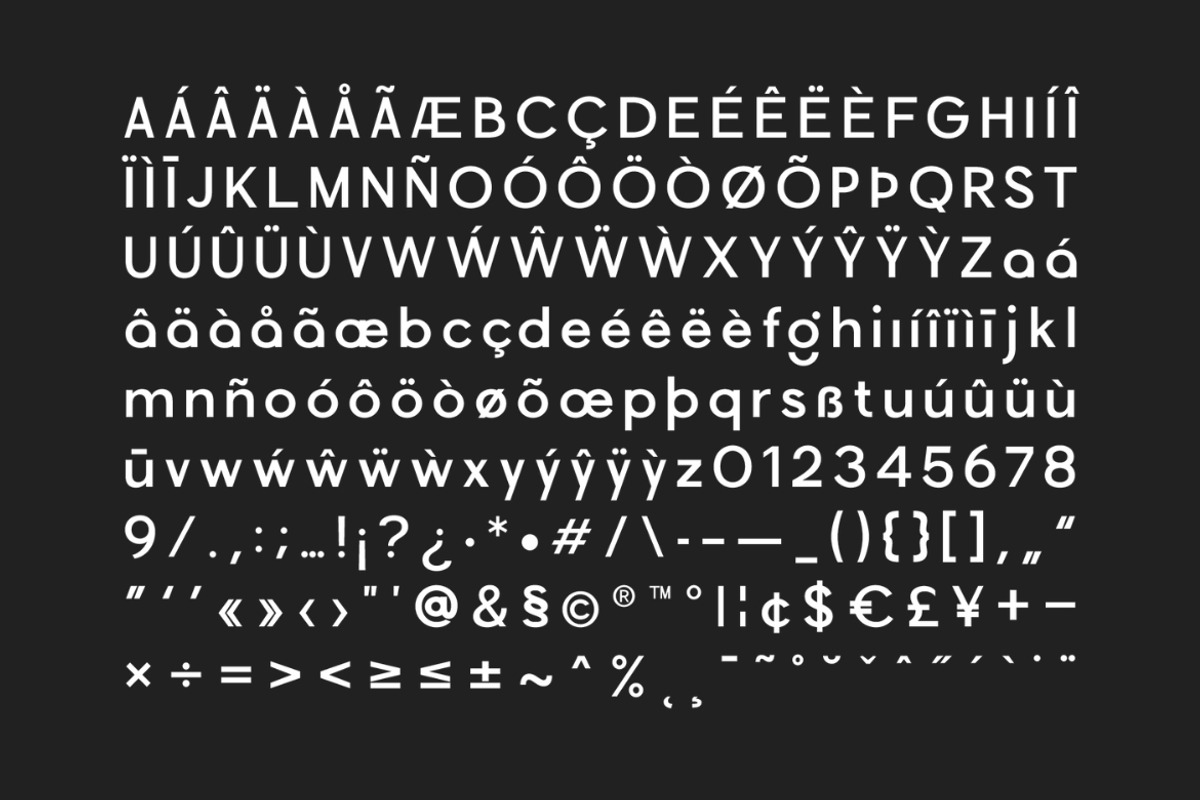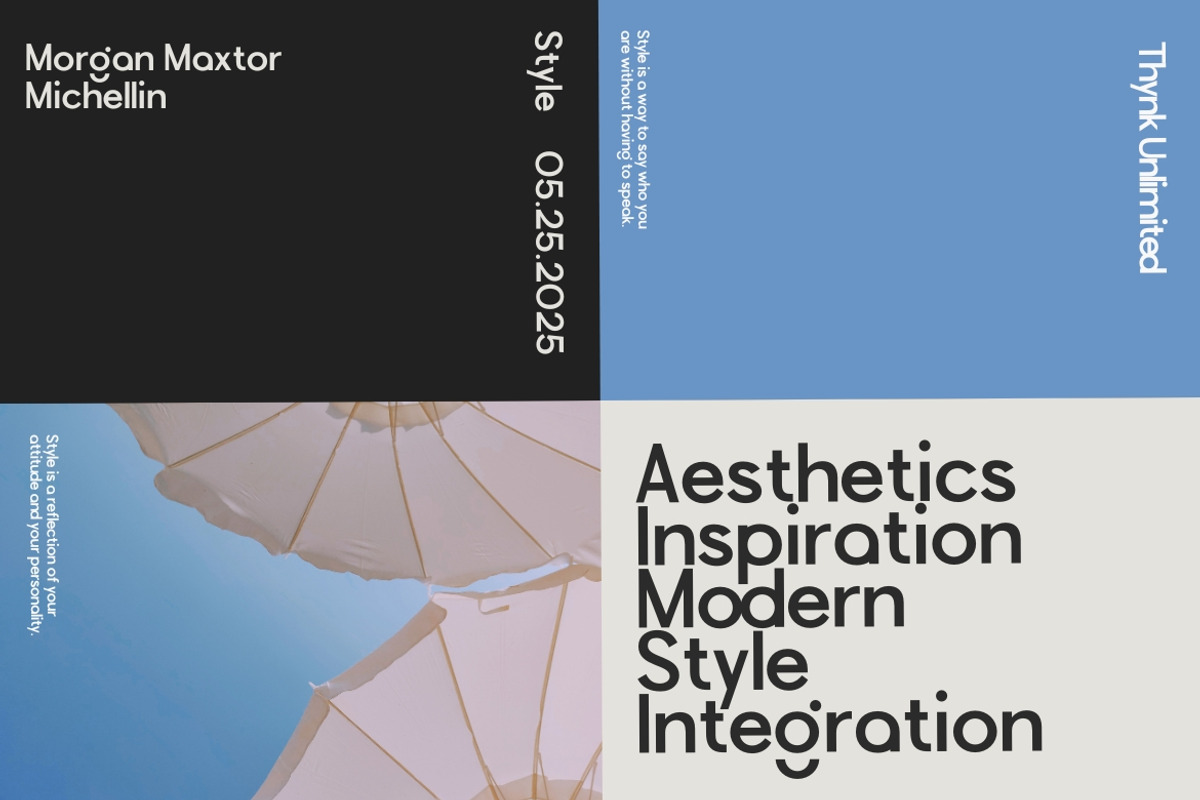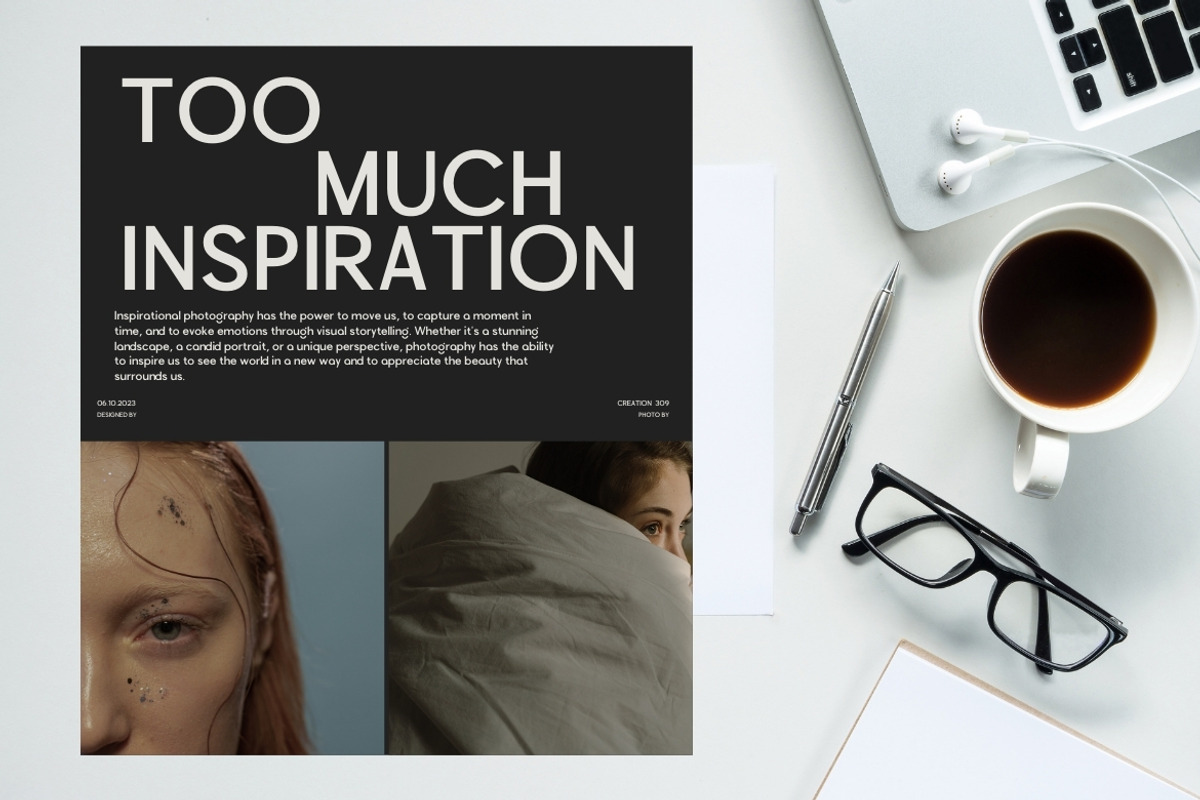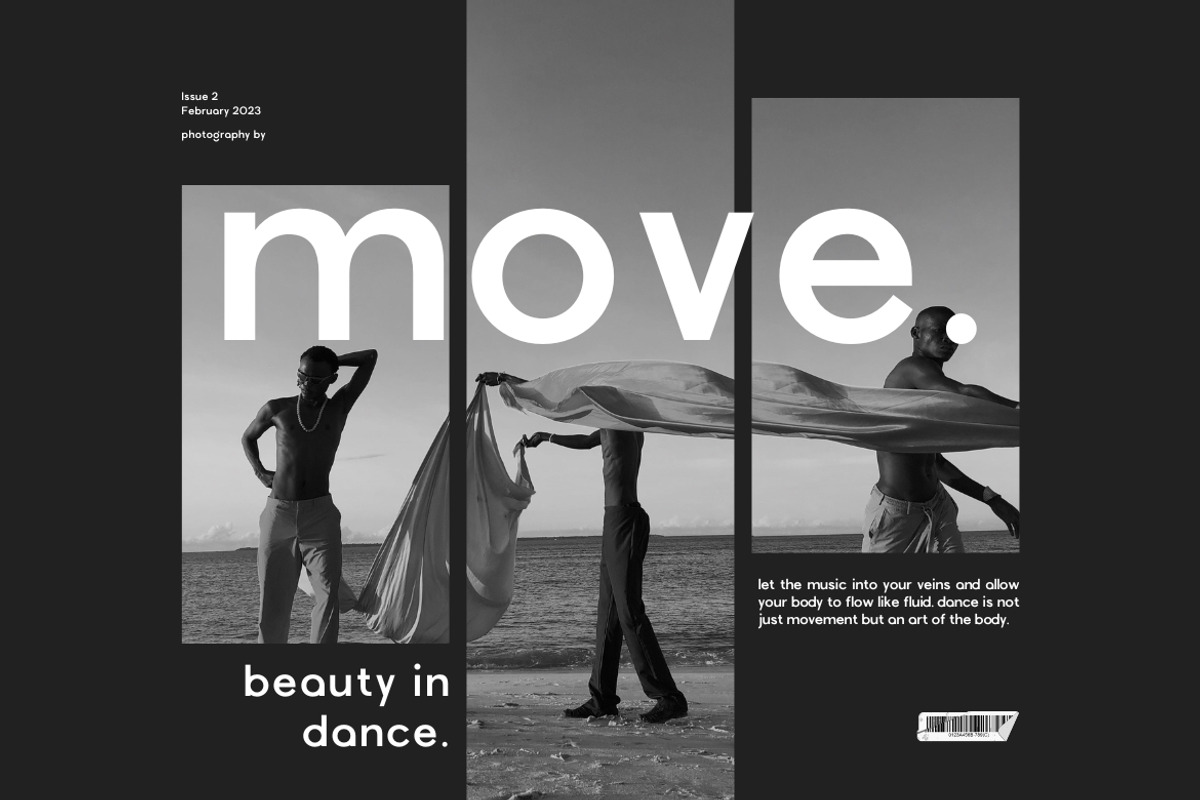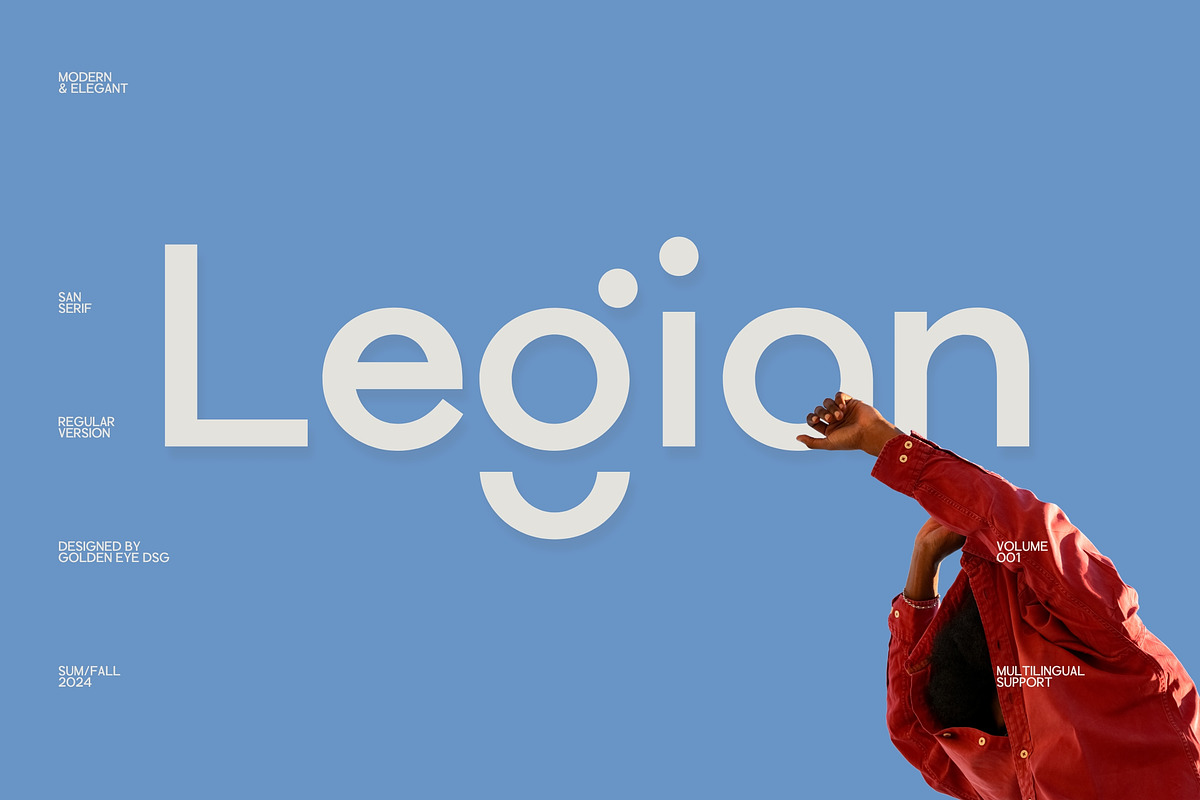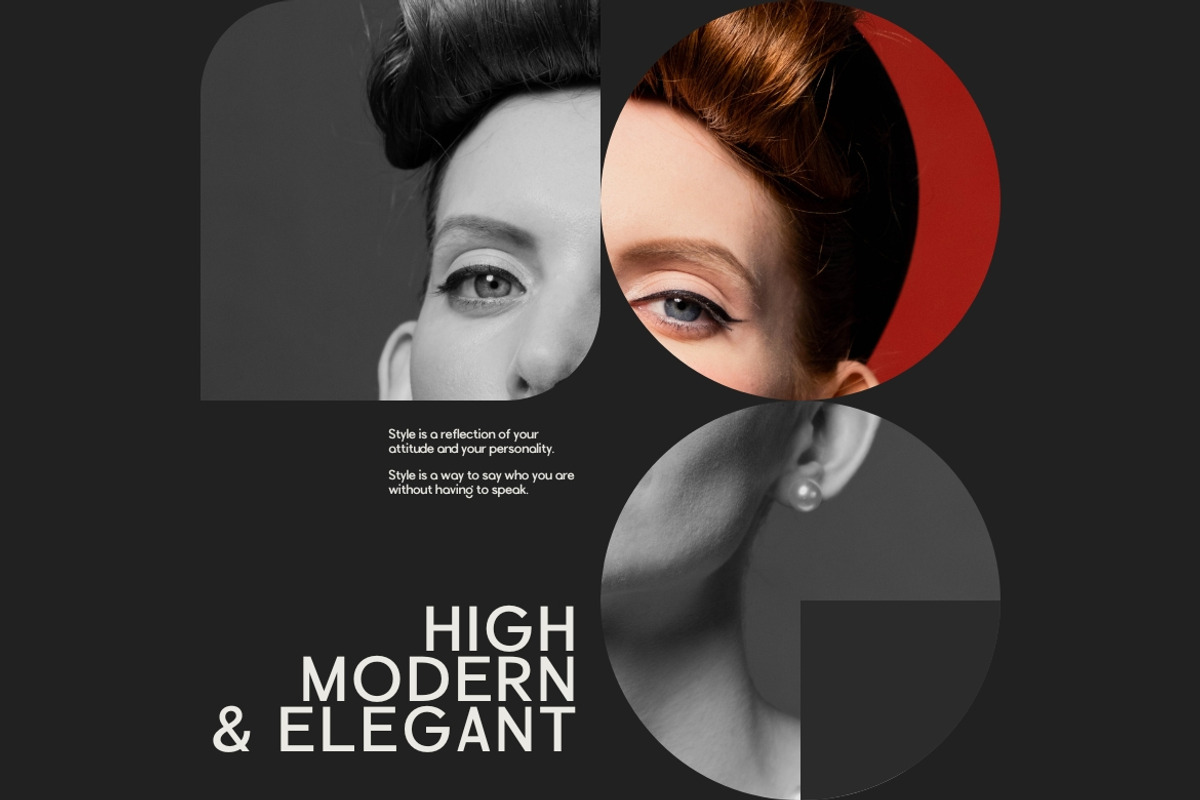
Legian - Modern Sans
Legian - Modern Sans Serif
Introducing our new Legian, modern sans serif font with elegant style this is perfect for branding, logos, invitation, magazines, product packaging and more.